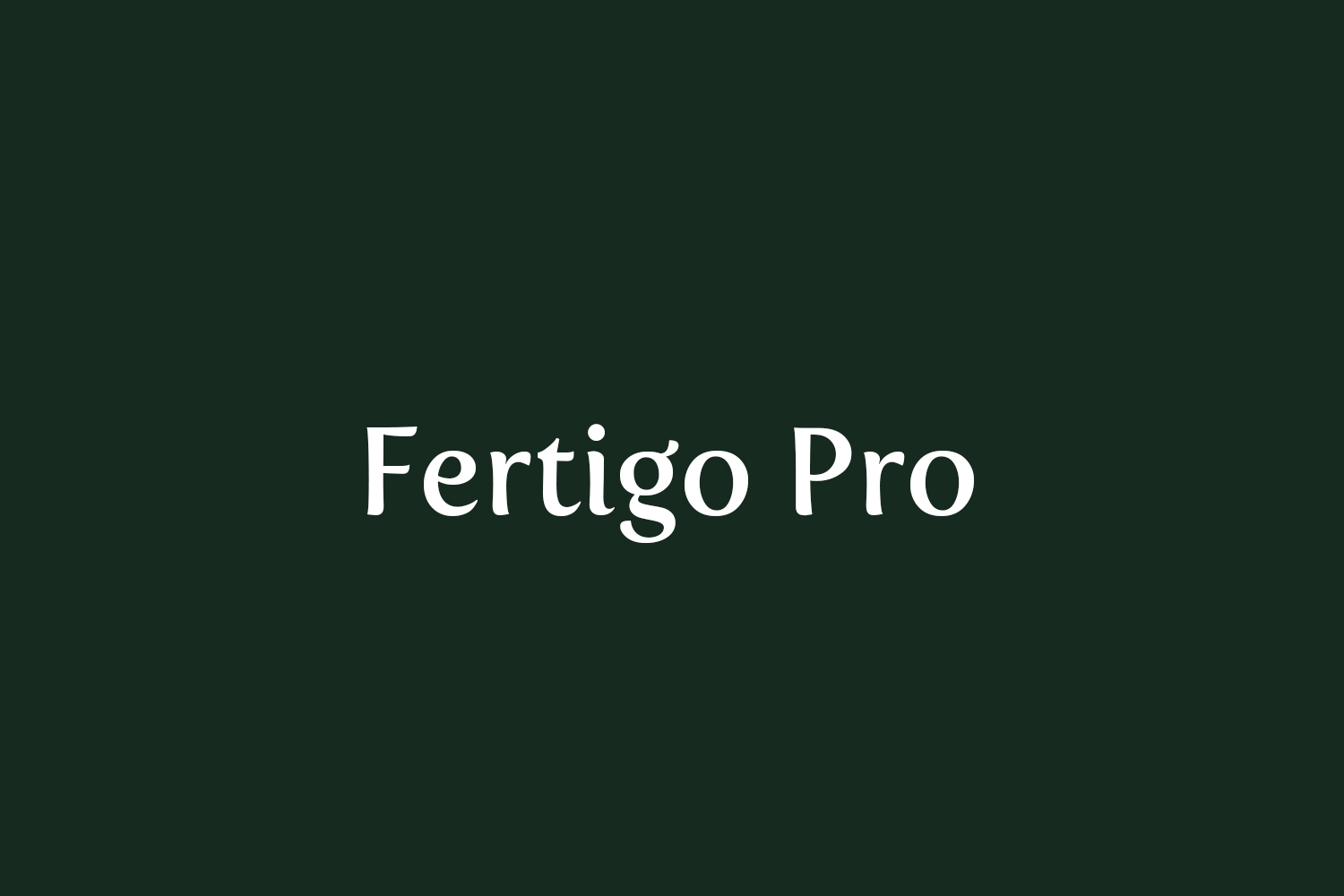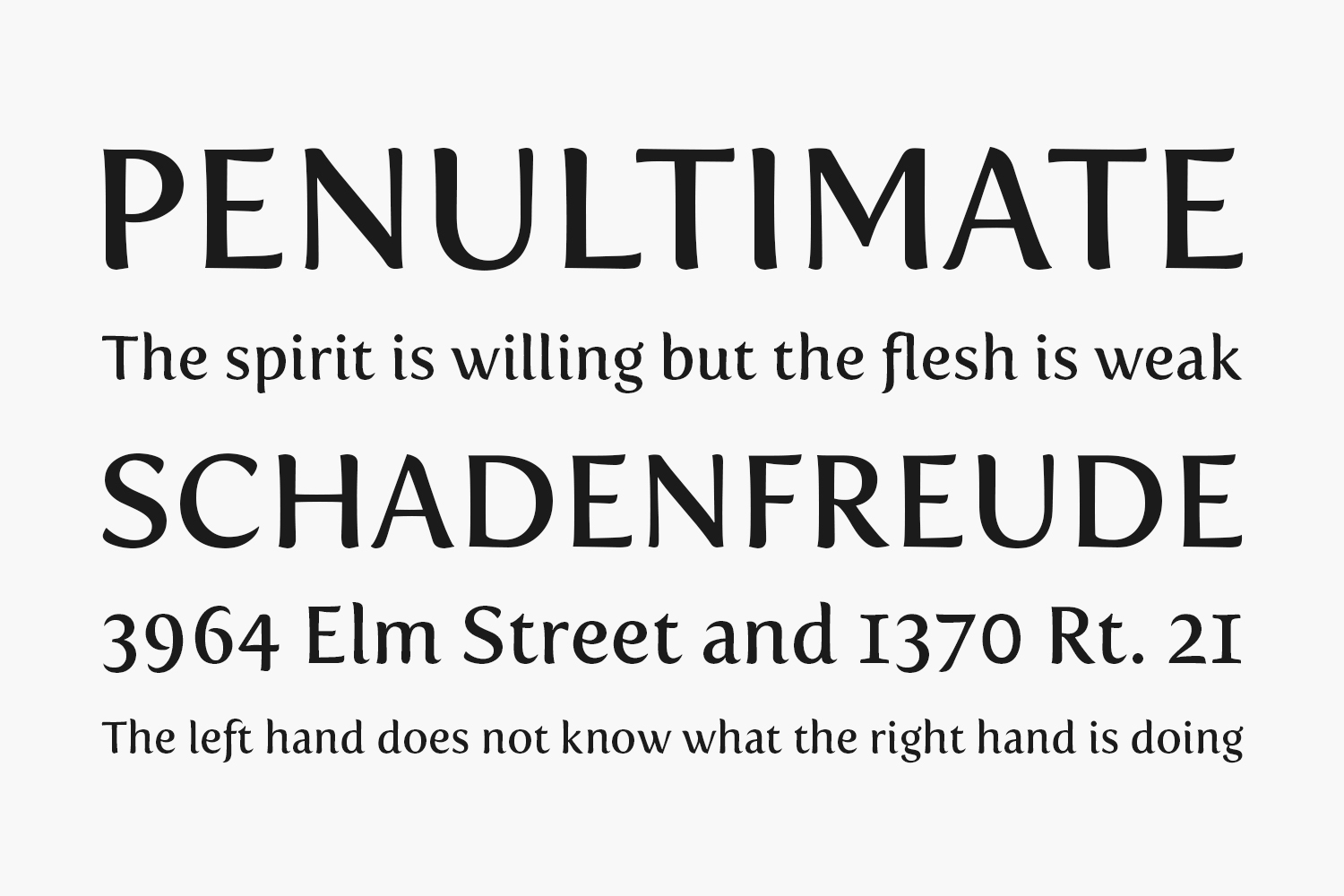
Enjoy Fertigo Pro Free Font Family. It’s a bit like Laphroaig; they say that the more you’ll get to know it, the more you will (probably) appreciate it.
It has auto-ligatures (no OpenType programs are needed). With a complete character set and a few other fine OpenType features it can be hard to resist.
Designed by Exljbris